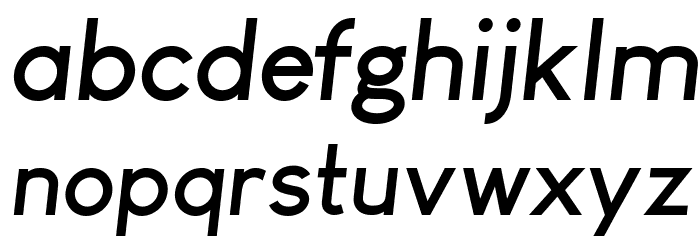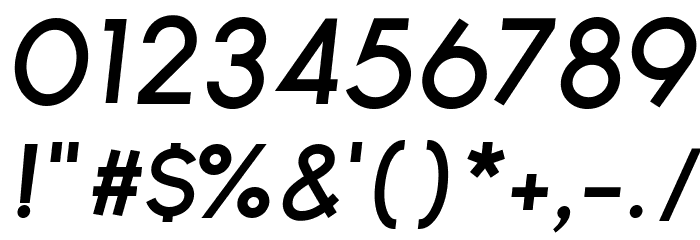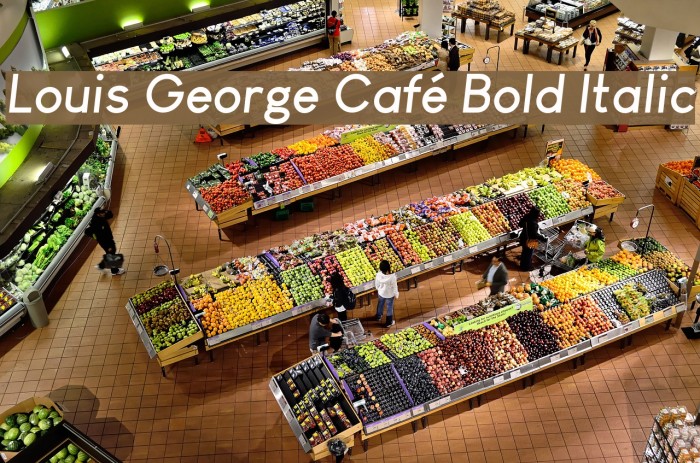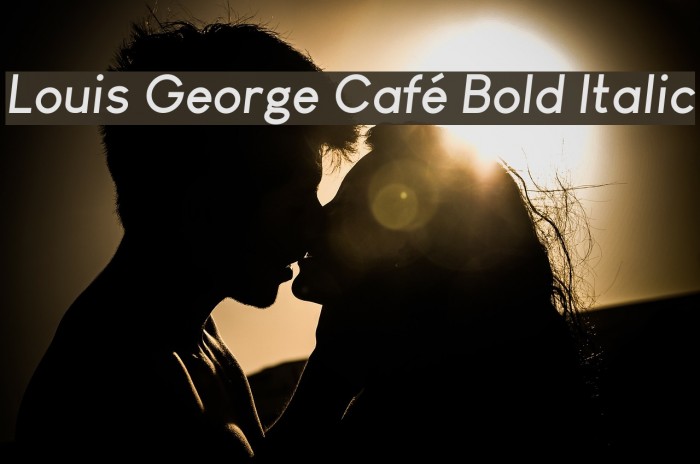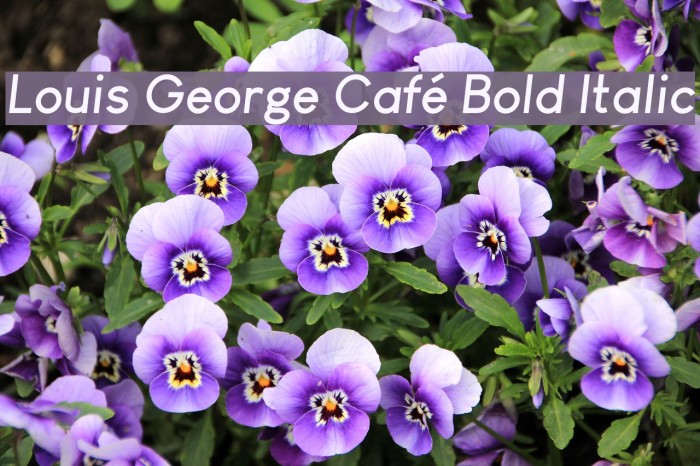
Louis George Café Bold Italic Font
This font exhibits a modern and sleek design with a bold and italicized style. The characters are well-defined with a smooth, flowing appearance that enhances readability while maintaining a stylish flair. The uppercase and lowercase letters are consistent in their design, providing a cohesive look across the alphabet. Numbers and special characters are equally well-crafted, ensuring versatility in various applications. The font's bold weight and italic slant add a dynamic and energetic feel, making it suitable for eye-catching displays and headings. Its clean lines and contemporary aesthetic make it a great choice for modern branding and design projects.
A bold, italicized font with a modern and sleek design.
- Proposed Projects: Ideal for branding, advertising, headlines, and modern design projects.
- Use Case: Headlines, Logos, Branding